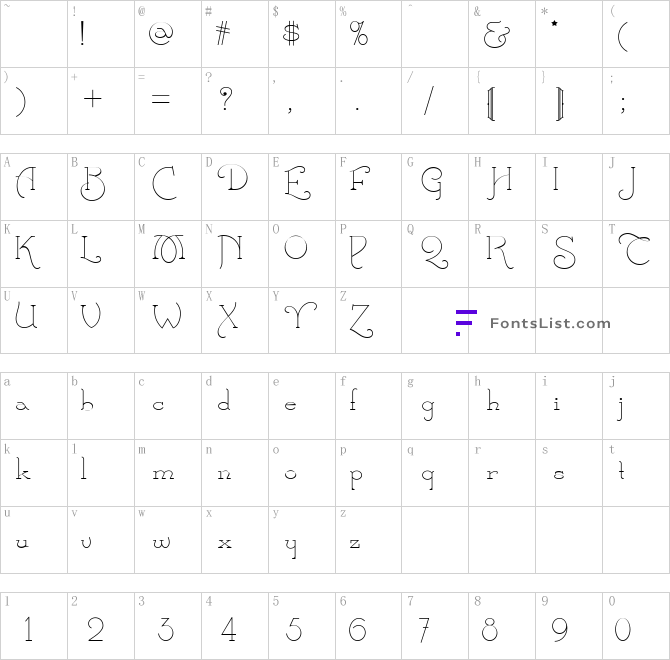
- Font Name:Calamity Jane NF
Calamity-Jane-NF.ttf is a very beautiful artistic font, Calamity-Jane-NF.ttf is widely used in the design and printing of various books and pictures,Calamity-Jane-NF.ttf has a strong visual impact,Calamity-Jane-NF.ttf is a commonly used font in newspapers, magazines and books, and is used in posters, e-commerce Poster design, store design, logo design, font design and other fields.Calamity-Jane-NF.